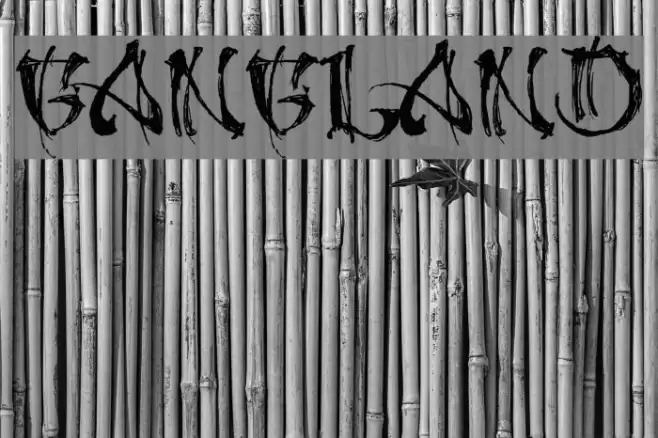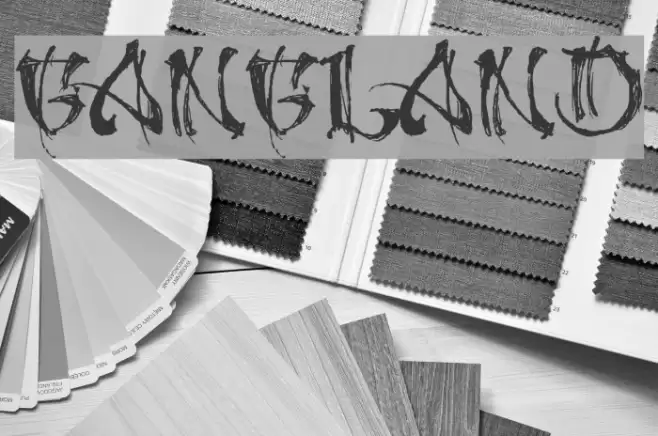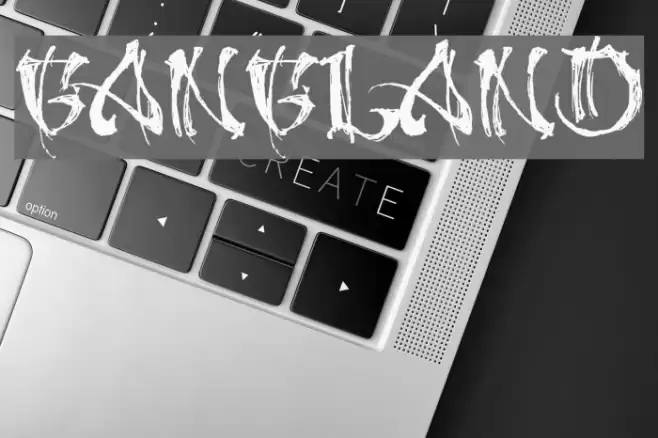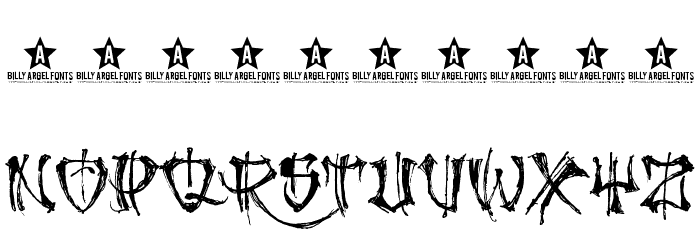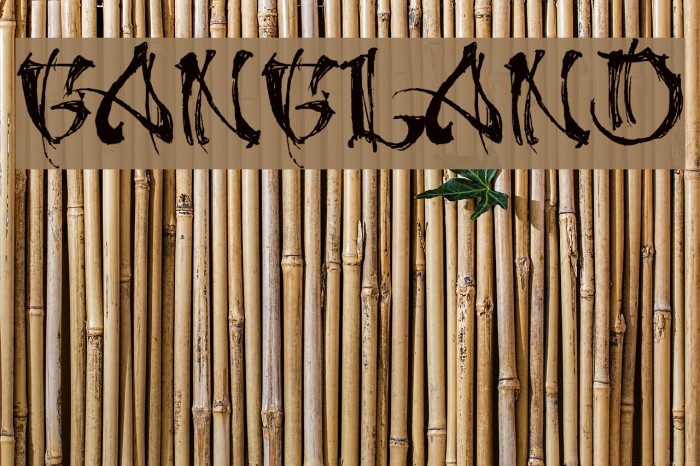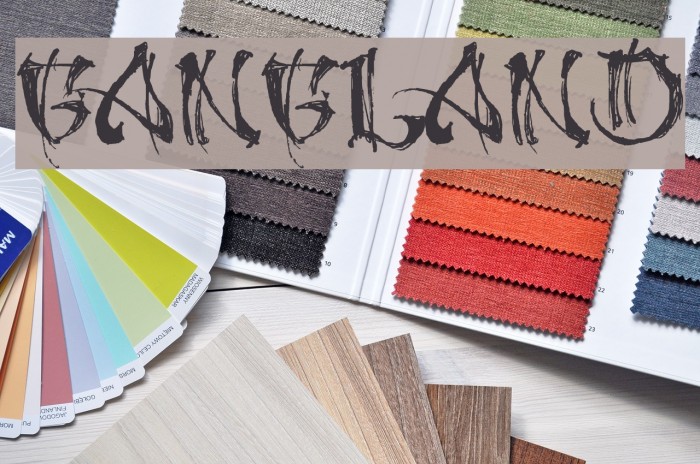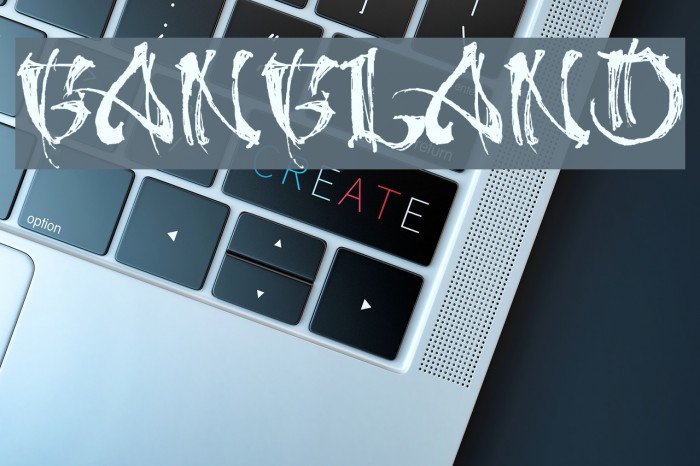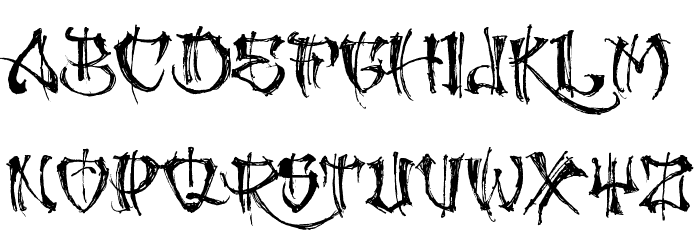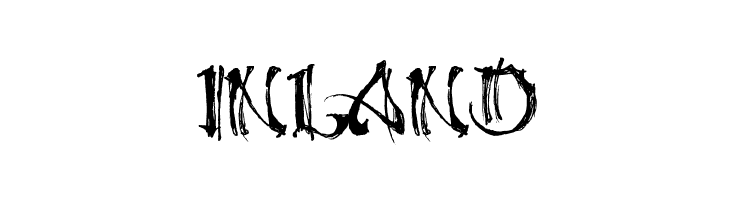
GANGLAND Font
GANGLAND Description
This font features a bold, edgy design with a graffiti-like appearance. The letters are characterized by sharp, angular lines and a distressed texture that gives them a rugged, urban feel. The uppercase and lowercase letters maintain a consistent style, with exaggerated curves and pointed edges that create a sense of movement and energy. The numbers and special characters are equally dynamic, fitting seamlessly into the overall aesthetic. This font is perfect for projects that require a bold, rebellious look, such as streetwear branding, music album covers, or event posters.
A bold, graffiti-inspired font with sharp, angular lines and a distressed texture from Uncategorized fonts.
- Proposed Projects: Ideal for streetwear branding, music album covers, event posters, and urban-themed designs.
- Overall Style: Urban, Edgy, Graffiti